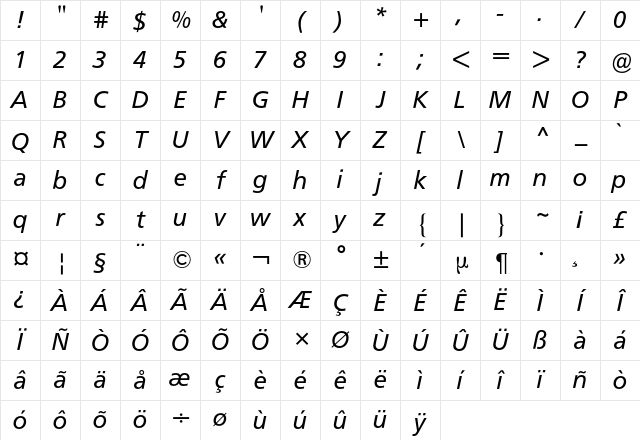
Frutiger BQ Regular
Frutiger BQ Family
Frutiger BQ Regular
Complete Frutiger BQ Regular glyph index. Displaying only characters natively supported by Frutiger BQ Regular font.
Design Context for Frutiger BQ
Frutiger BQ is a composed and adaptable typeface that performs quietly and consistently across a wide range of design contexts.